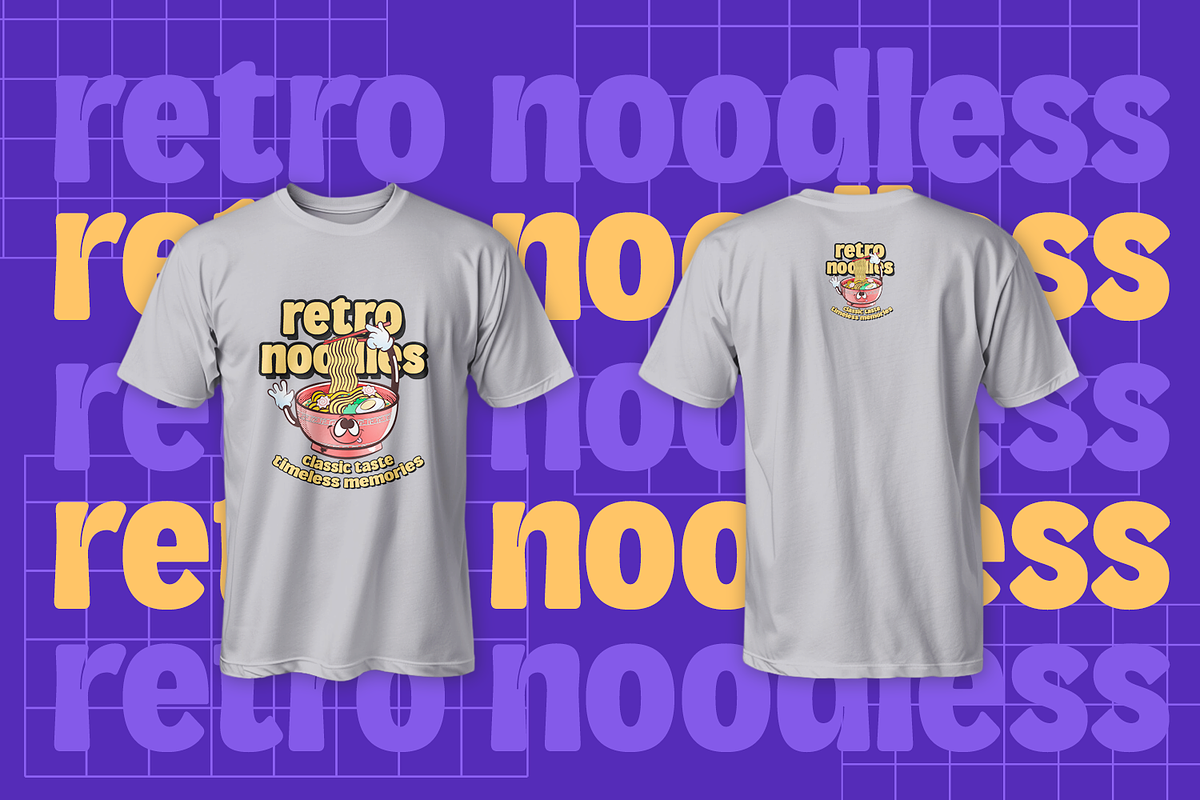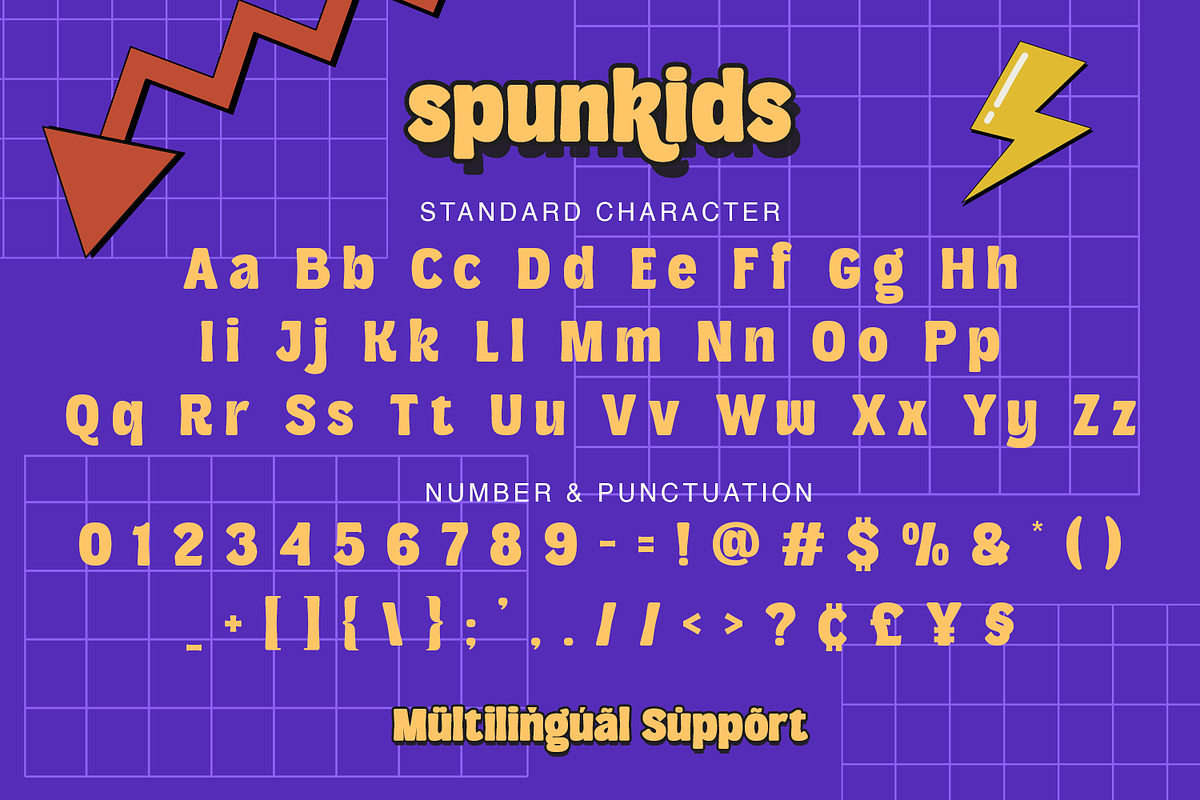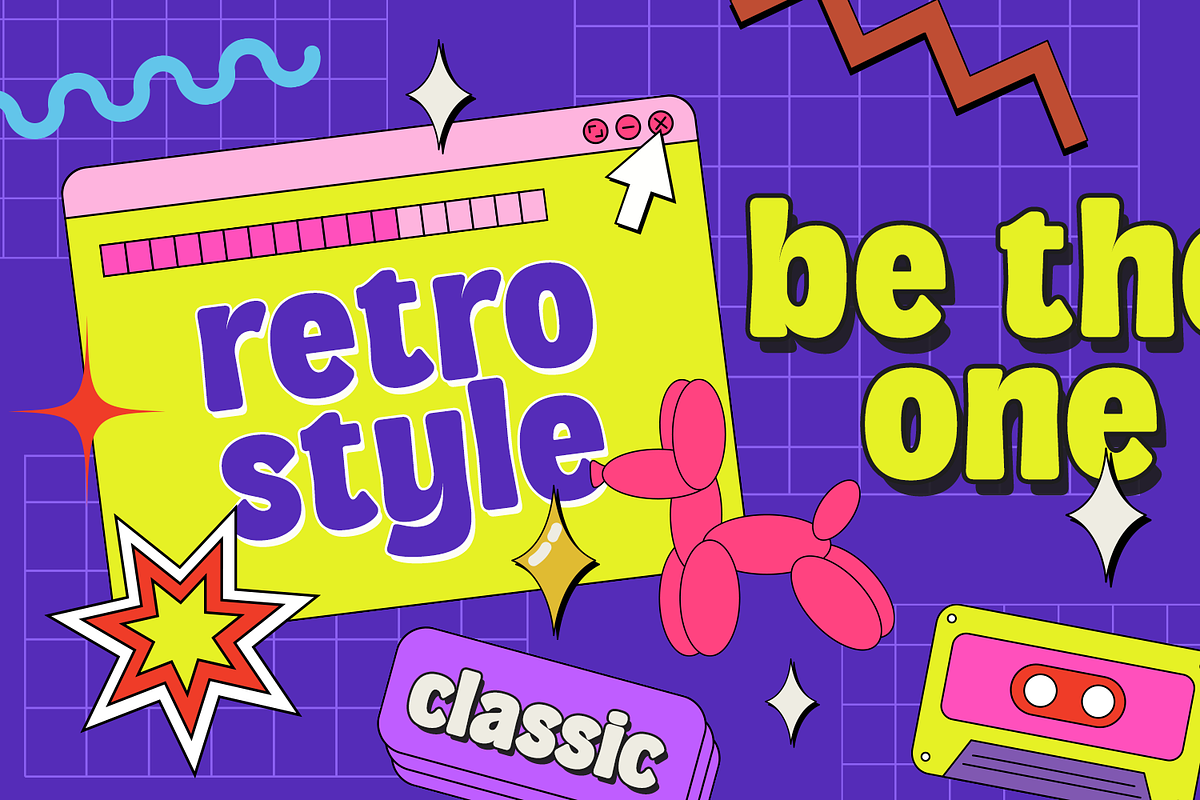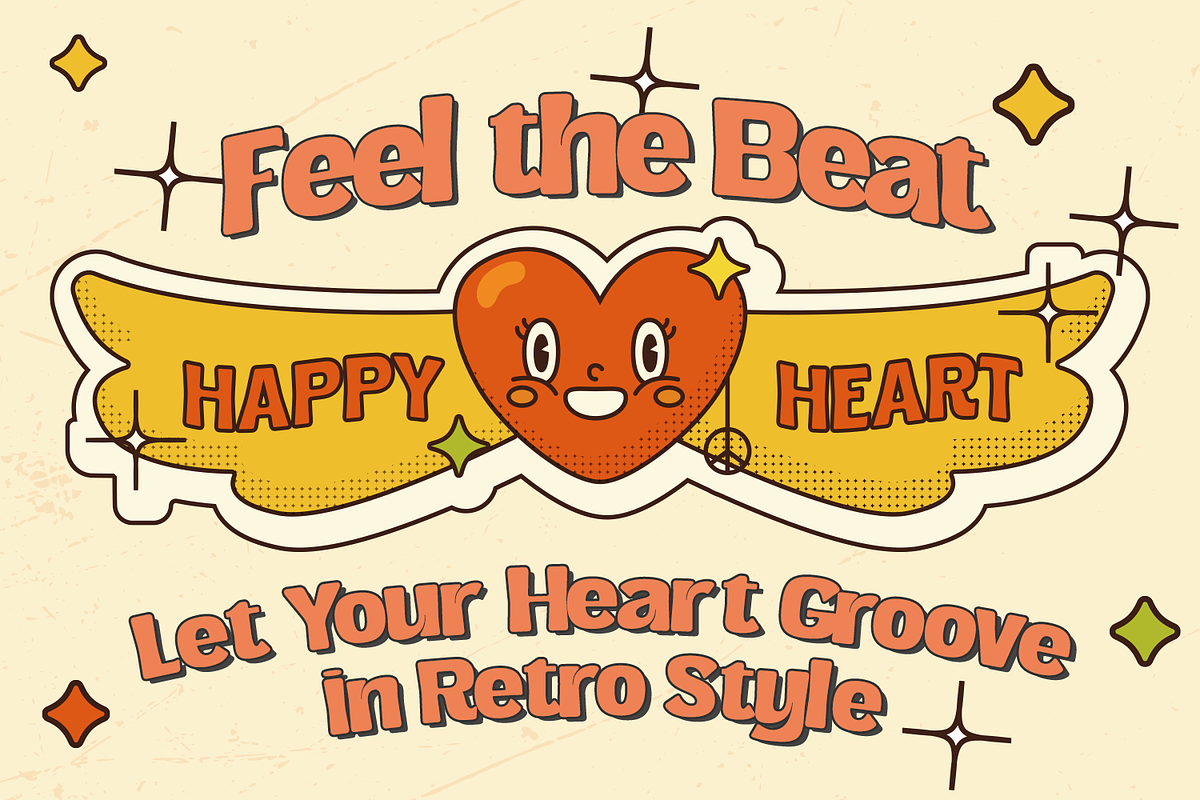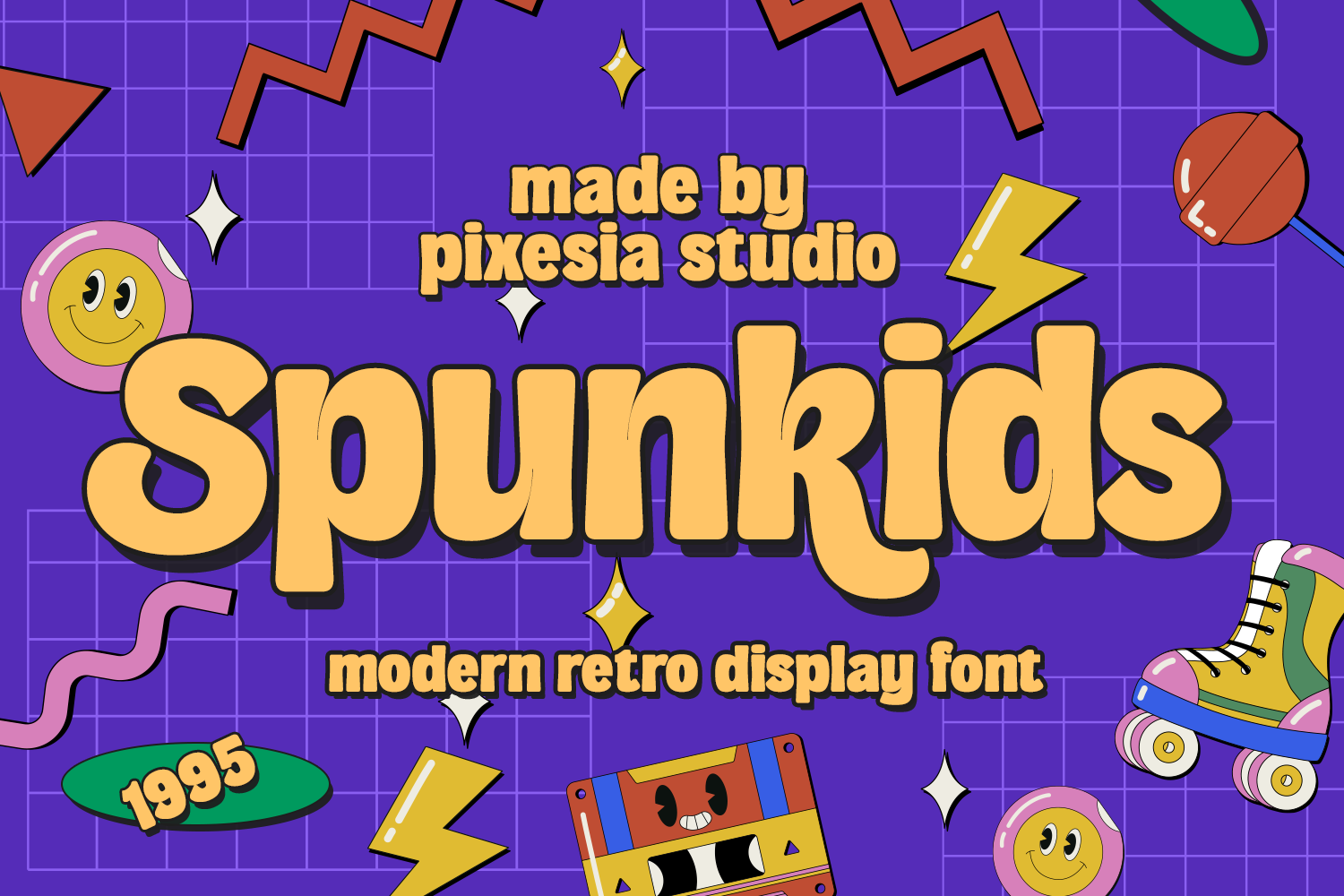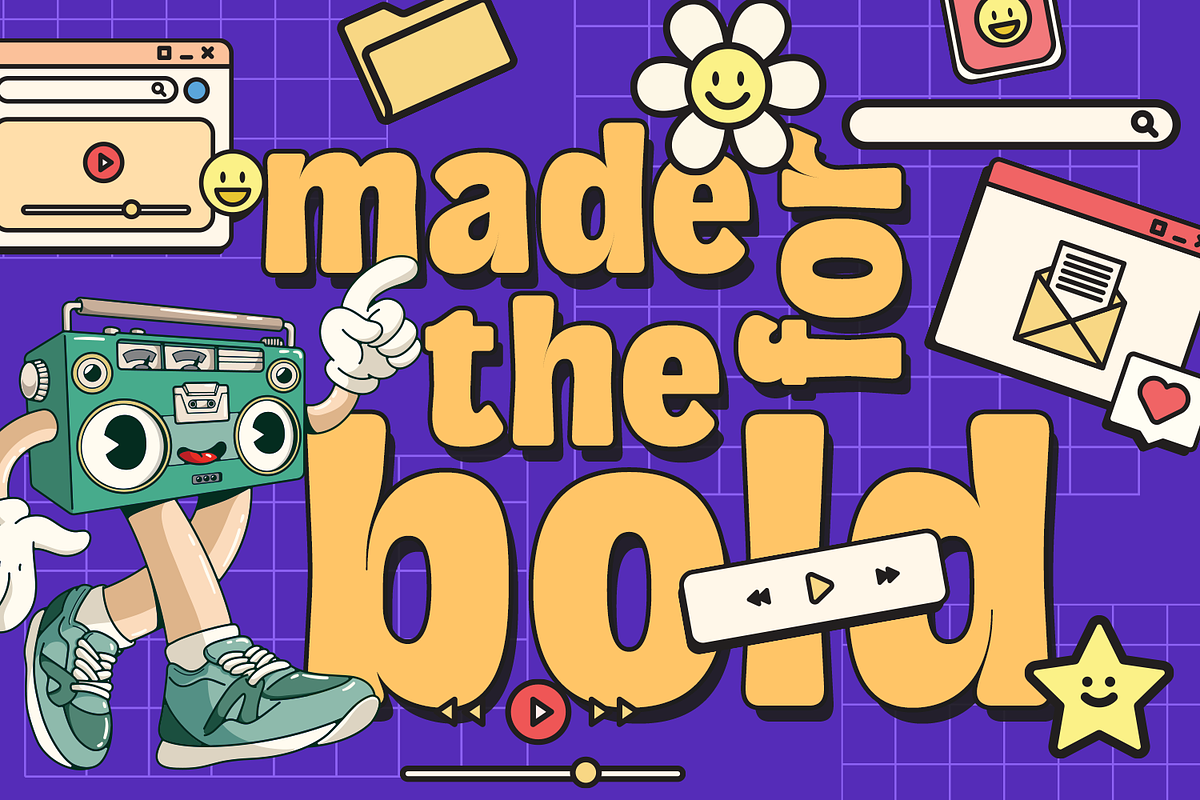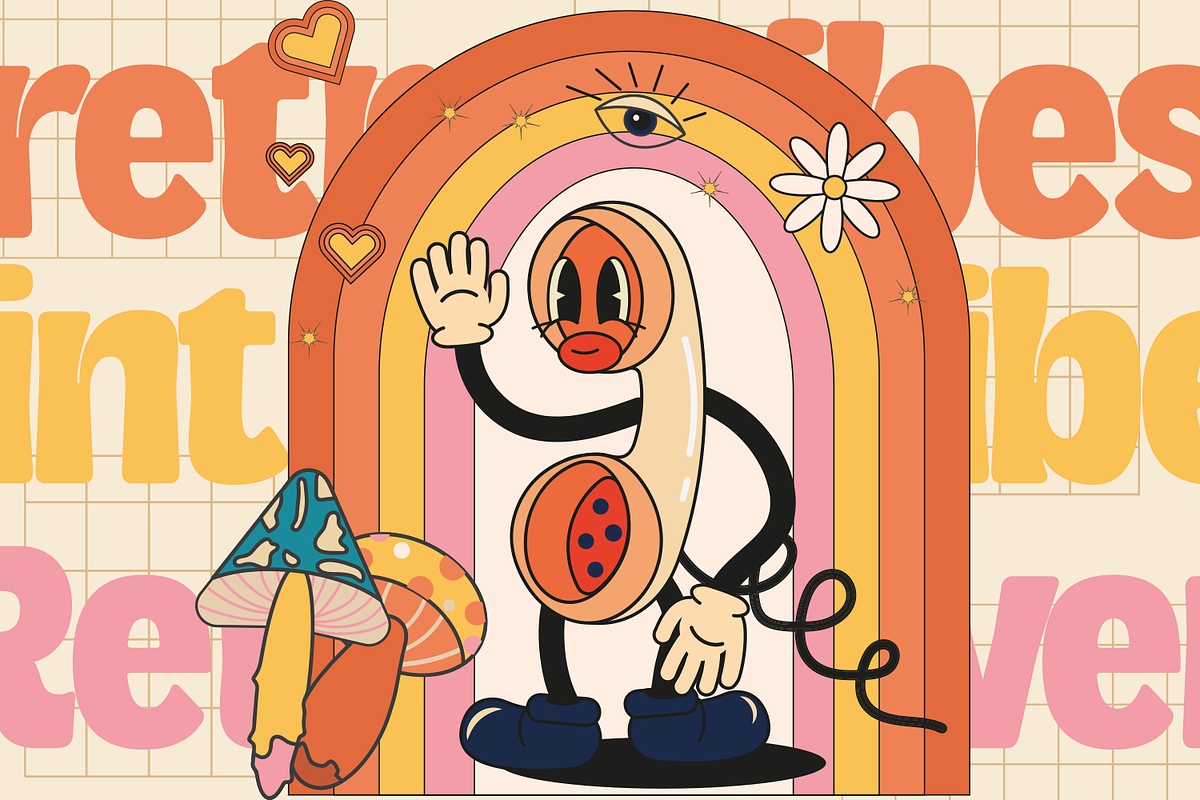
Spunkids - Retro Sans Serif Font
Introducing Spunkids - Retro Sans Serif Font
Spunkids is a retro sans serif display font with bold, playful letterforms. This font features smooth curves and a retro style, reminiscent of the 1960s and 70s, evoking a playful, relaxed, and informal feel with its bold, clean lines.
Spunkids is perfectly suited for branding, logotype, social media posts, headlines, logo, greating card, advertising, product packaging, label, photography, watermark, poster, t-shirt, website design, invitation, stationery and any project seeking a fun, retro feel with bold, playful letterforms.
- PUA Encoded Characters - Easily accessible without additional design software.
- Multilingual Support including Afrikaans, Albanian, Basque, Catalan, Danish, Dutch, English, Estonian, Faroese, Filipino, Finnish, French, Galician, German, Icelandic, Indonesian, Irish, Italian, Malay, Norwegian Bokmål, Portuguese, Spanish, Swahili, Swedish, Zulu